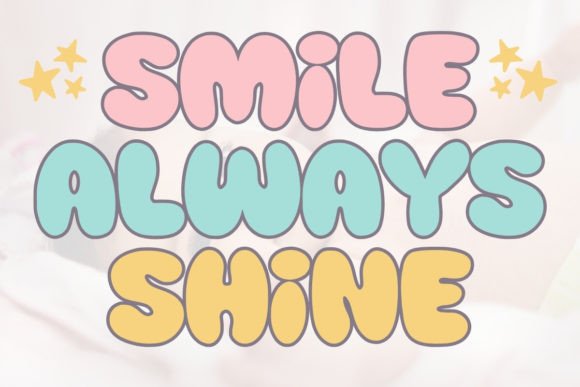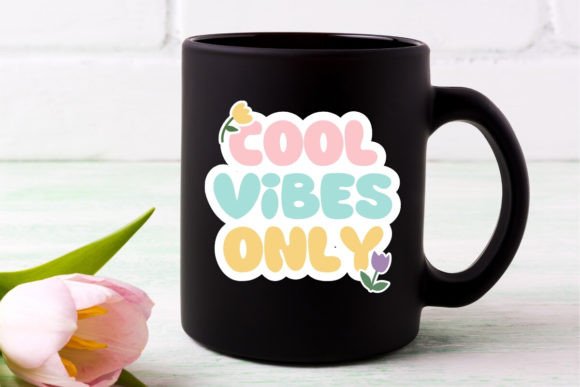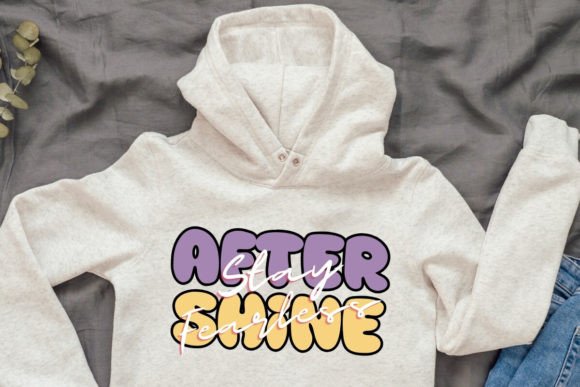
Baby Barbie Font
Baby Barbie is a cute and unique bubble font. Ideal for all designs, It embodies playfulness and authenticity and is the perfect choice for all your favorite projects, or even for blog posts, logos, branding, advertising, invitations, greeting cards, planners, photo albums, decorations and more. Add it to your design, and enjoy the results!